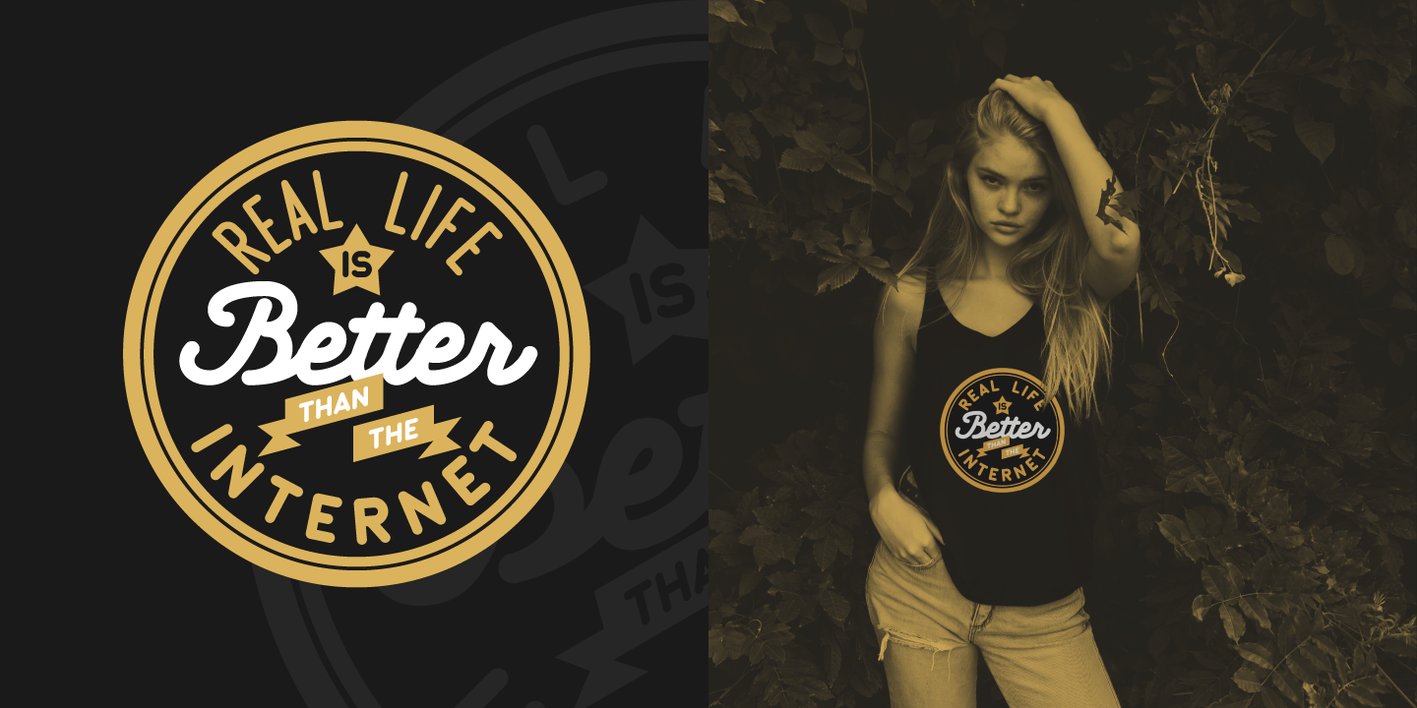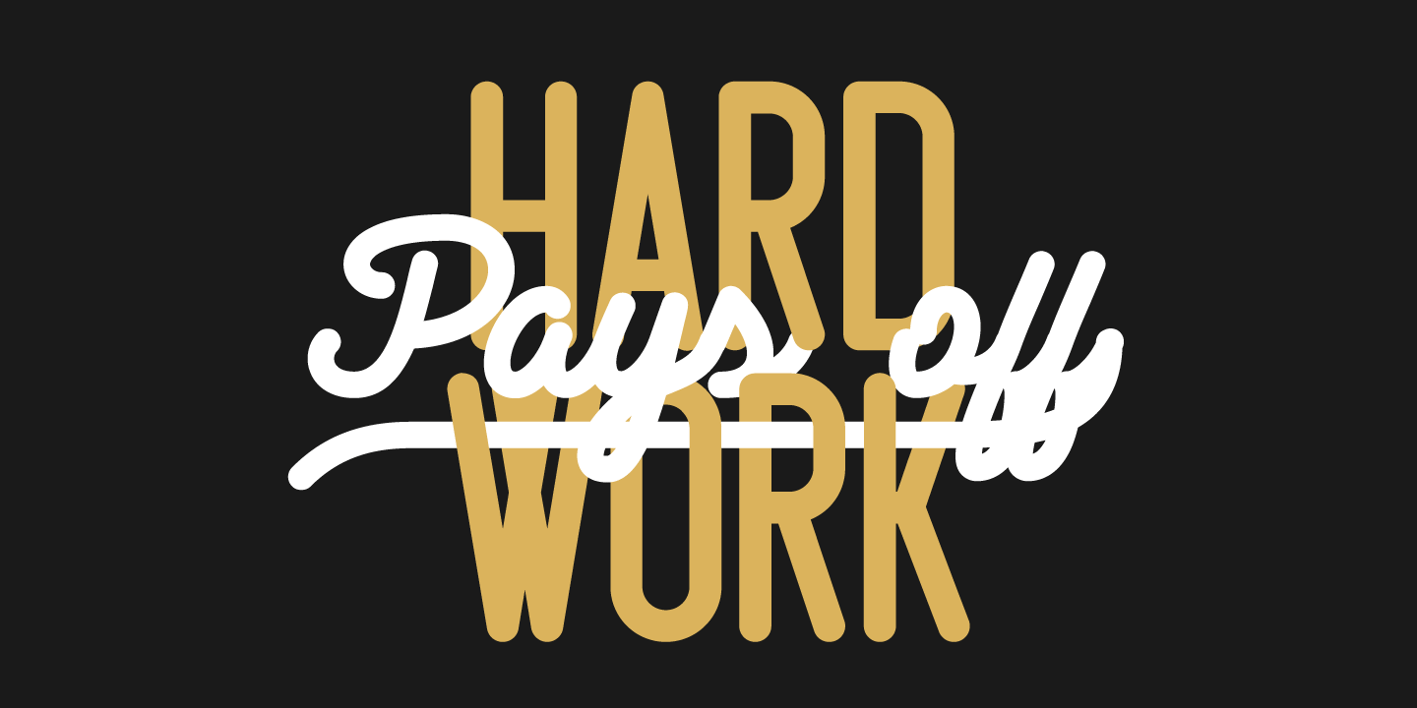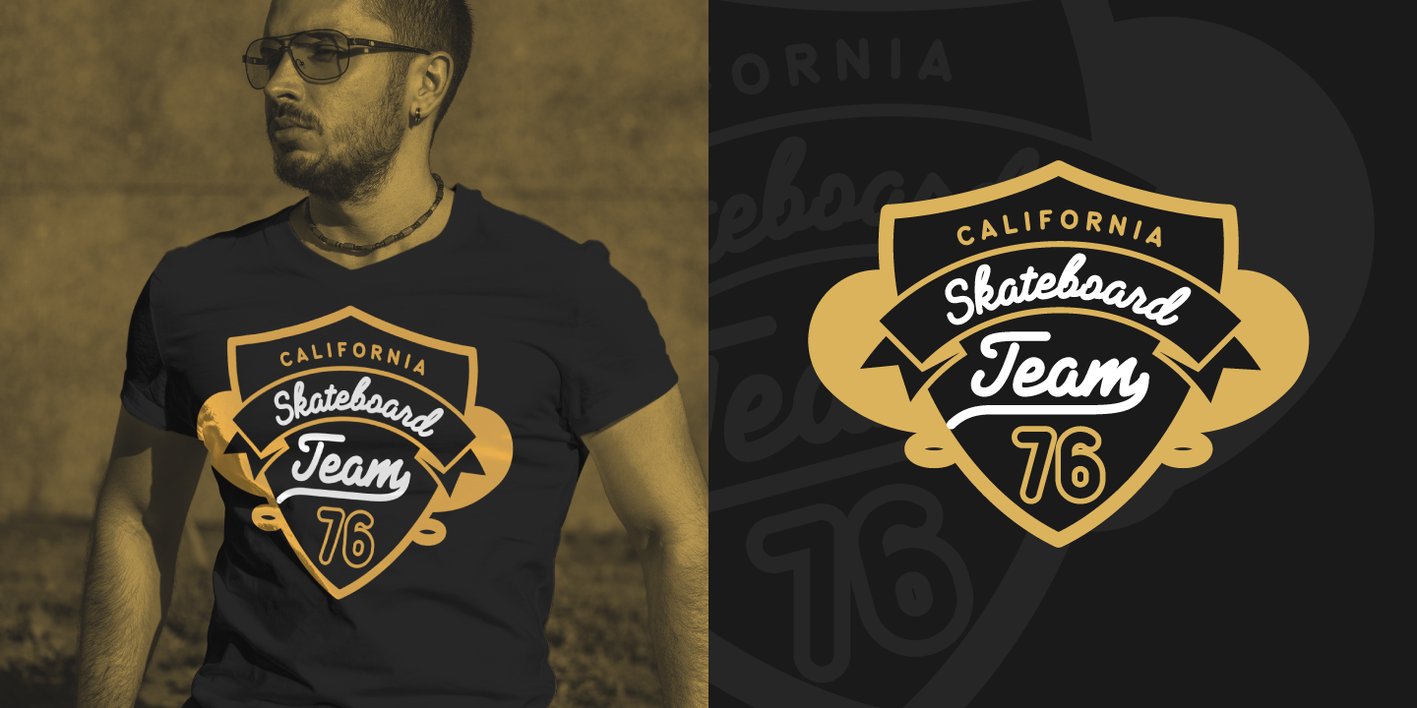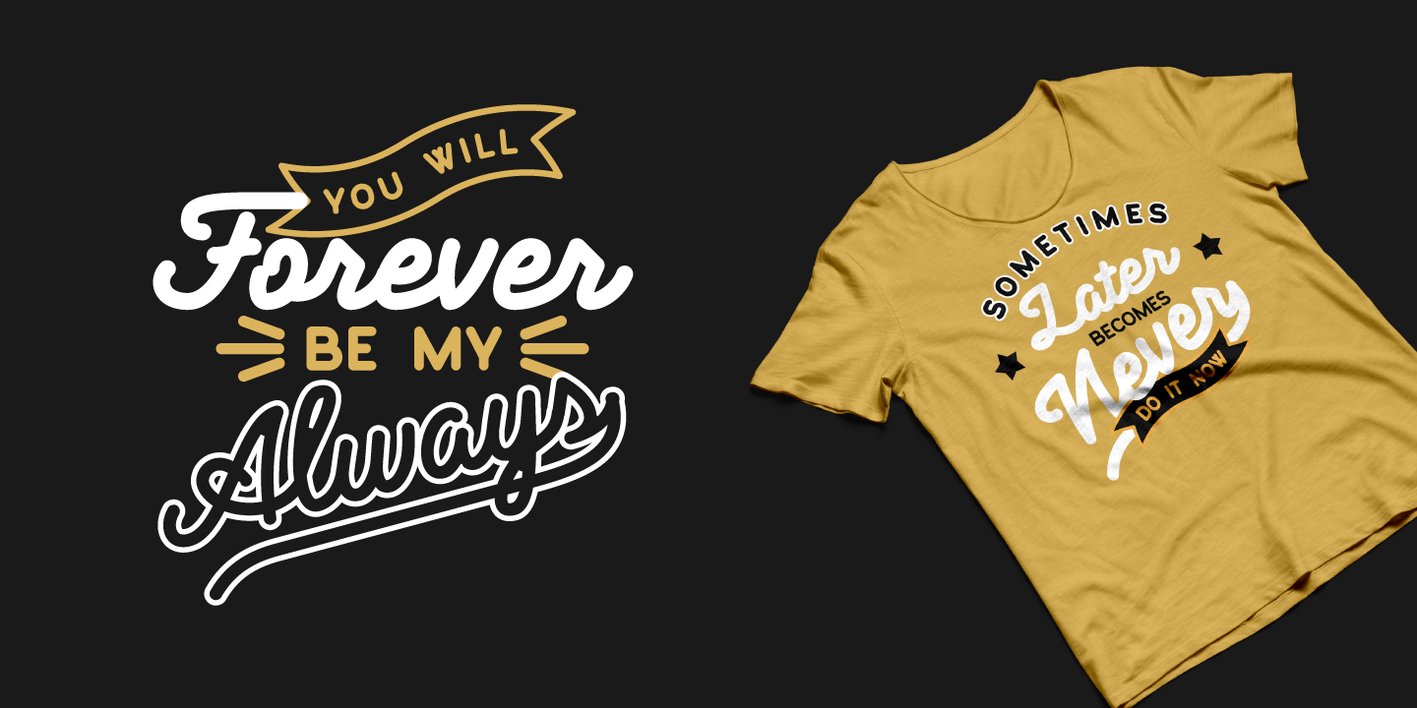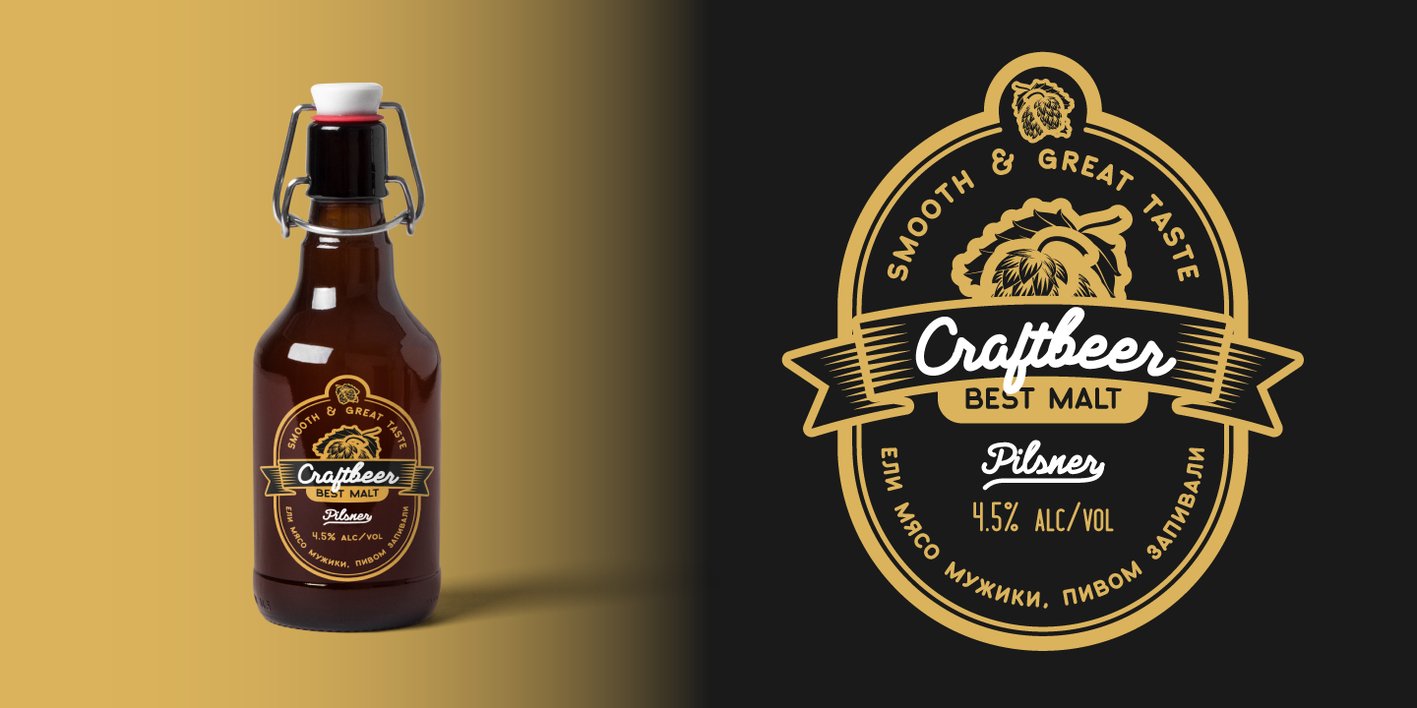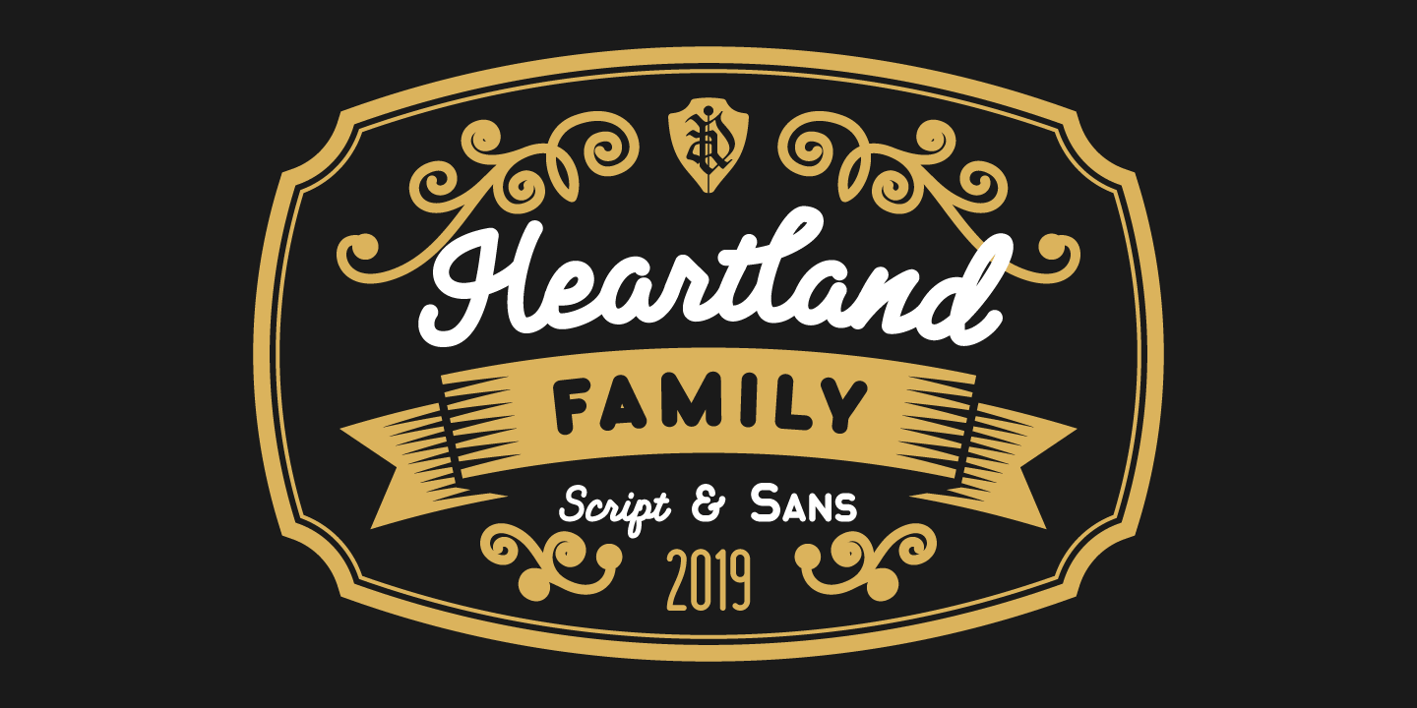
Heartland Font
Heartland font family is a pack of the bold connected script and rounded sans. Font is great to use for logotype, menu and product labels, prints, posters, branding, social media. This pack include 3 fonts: - Heartland Script - Heartland Sans - Heartland Sans Condensed - Heartland Italic Sans - Heartland Bold Sans Download Heartland for your next project today! Thank you and have a great day!